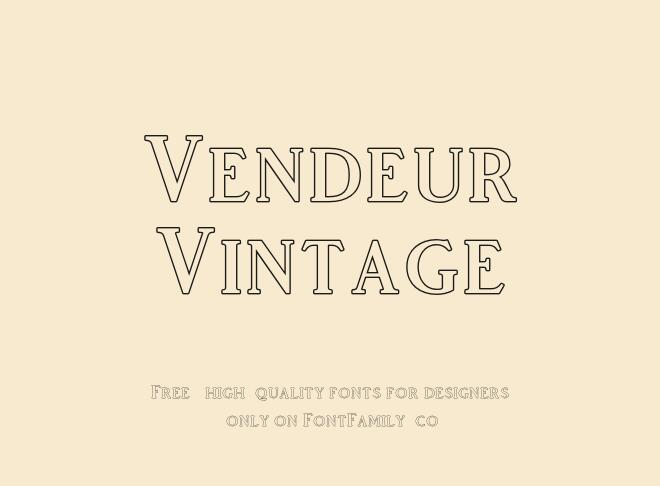
Vendeur Vintage Font
The Vendeur Vintage Font is a beautifully designed typeface that effortlessly captures the charm and elegance of yesteryears. This handcrafted font is a perfect blend of modern design sensibilities and the timeless allure of vintage typography. Its hand-drawn details give it a unique personality, making it a standout choice for branding projects, logos, wedding designs, social media posts, and more. Its retro-inspired aesthetics make it a fitting choice for anyone looking to infuse a touch of nostalgia into their designs. The Vendeur Vintage Font is reminiscent of classic typefaces of the past, yet its contemporary touch ensures it remains a versatile and fresh addition to any designer's toolkit. Its free download makes it an accessible choice for designers on a budget but does not compromise on quality or style.